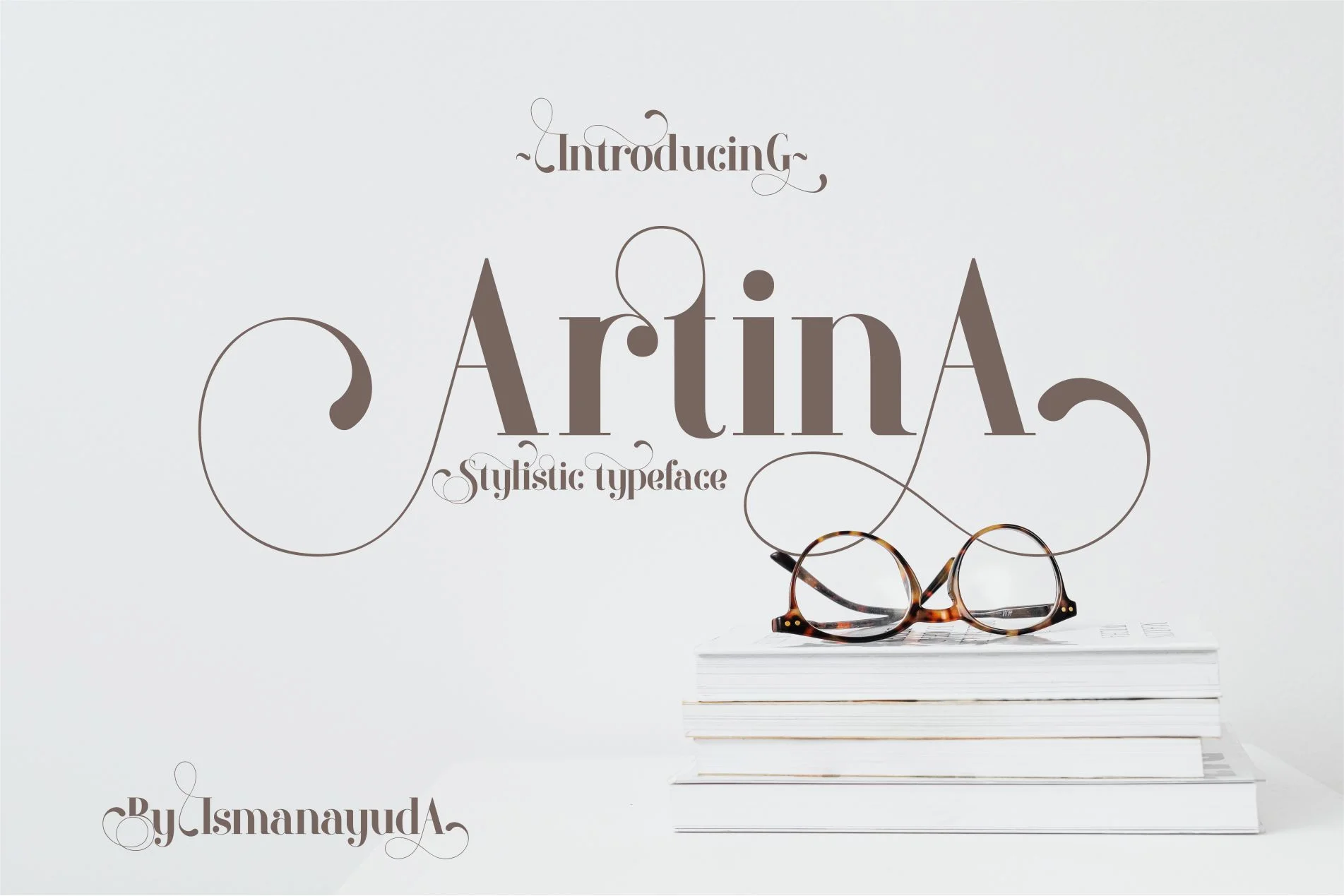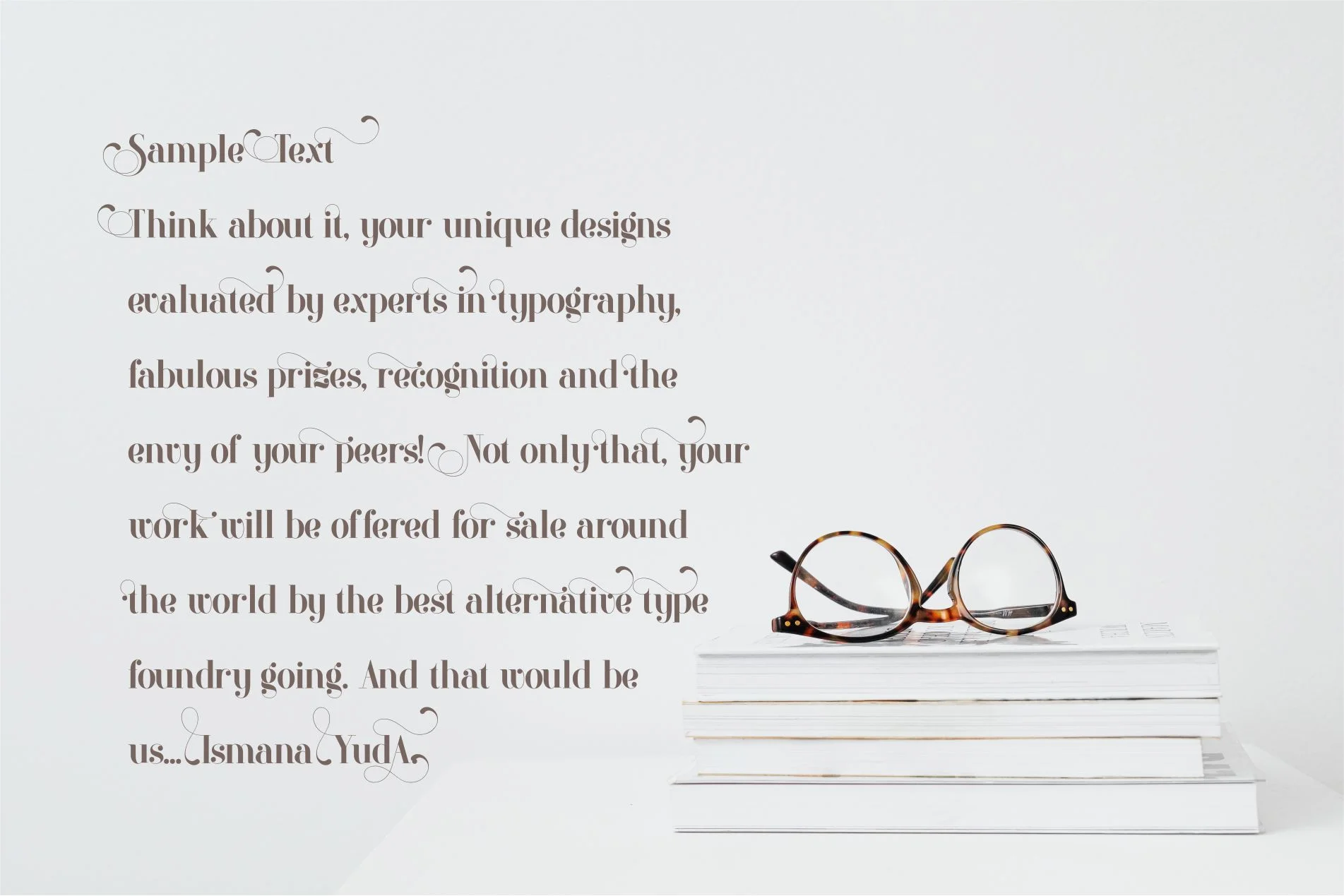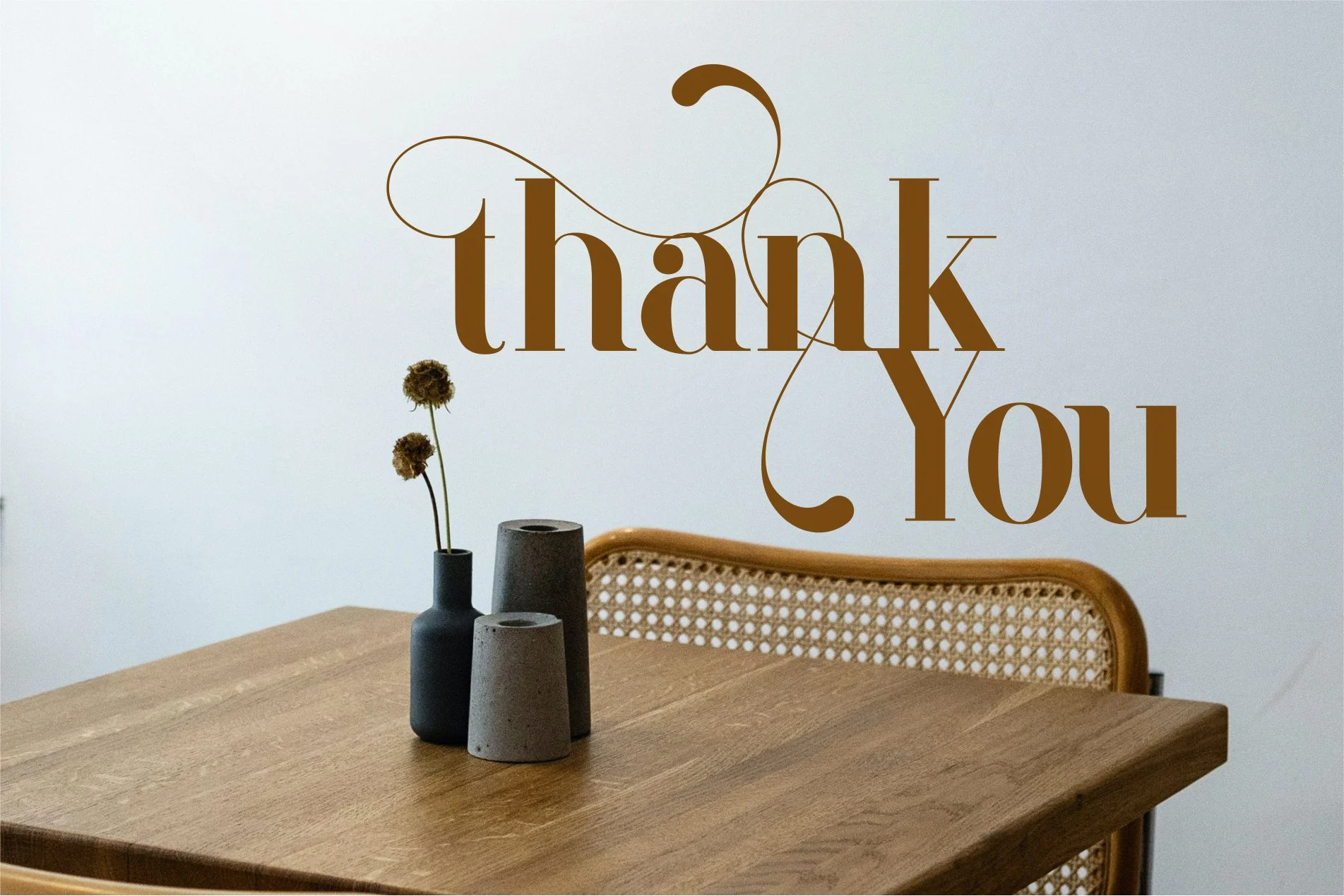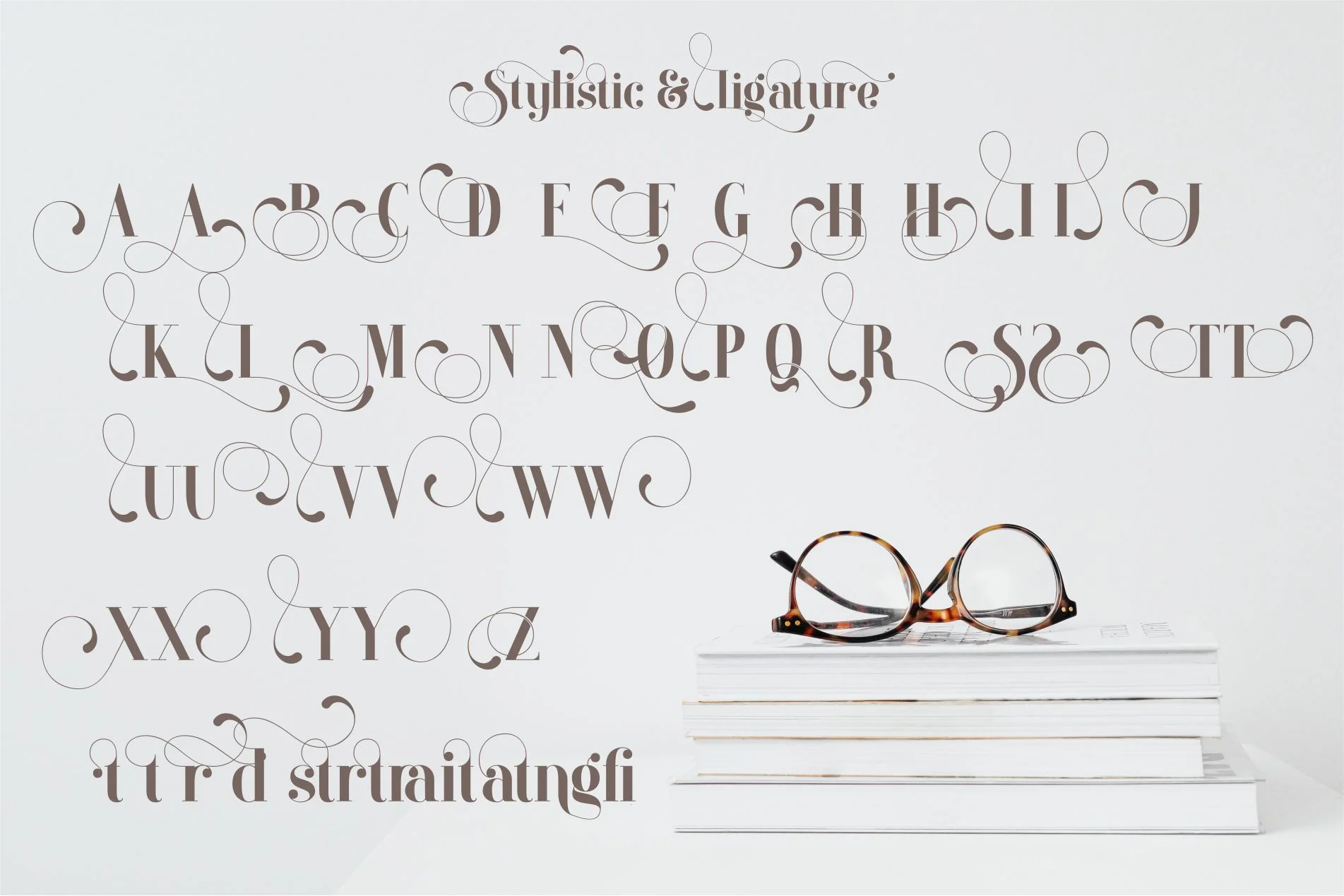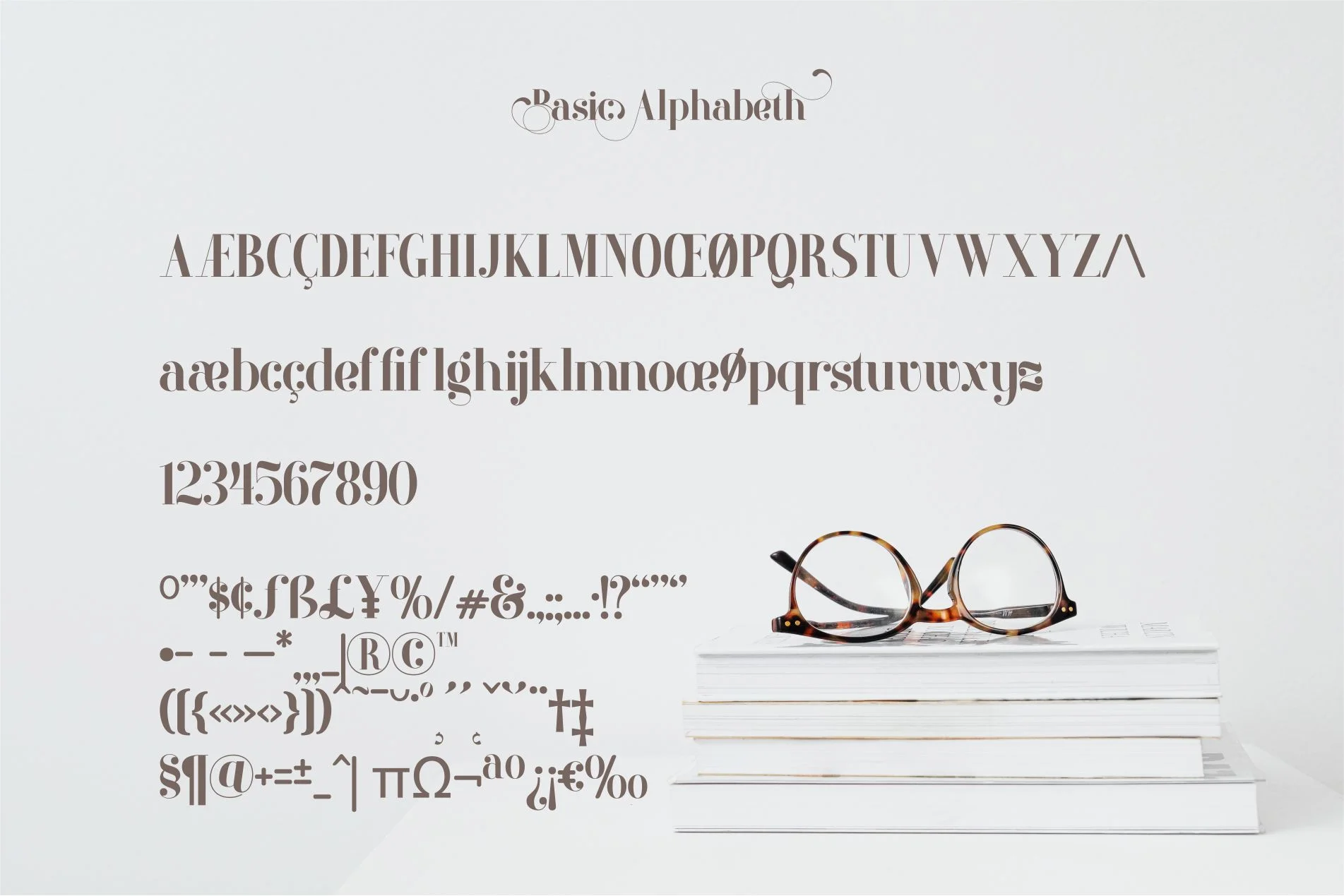
Artina
Artina, a stylish and elegant serif typeface designed by Ismanayuda. This font is characterized by its high contrast between thick and thin strokes, giving it a sophisticated and high-end feel. It features unique, playful swashes and elongated decorative curves—particularly on the 'A' and 'r'—which add a touch of romance and personality.
The design is a blend of classic serif stability with modern artistic flair, making it ideal for wedding invitations, luxury branding, beauty fashion logos, and personalized cards. Its delicate yet bold presence ensures it stands out as a headline or display font.